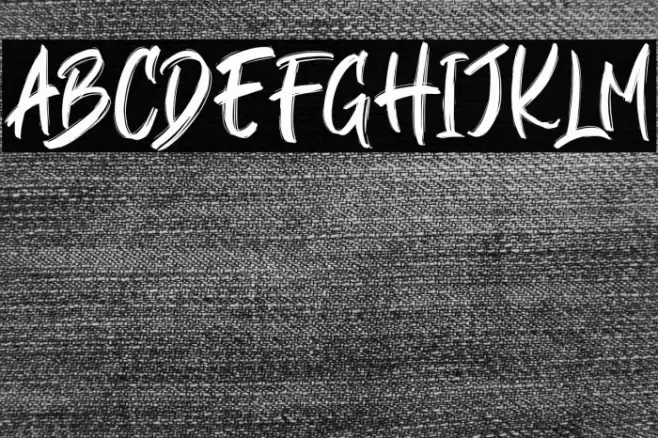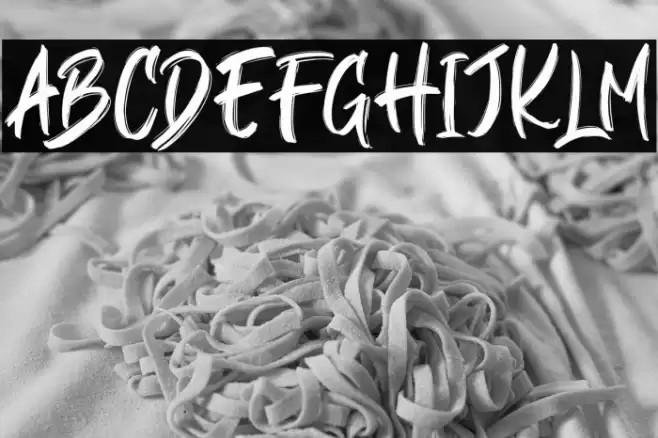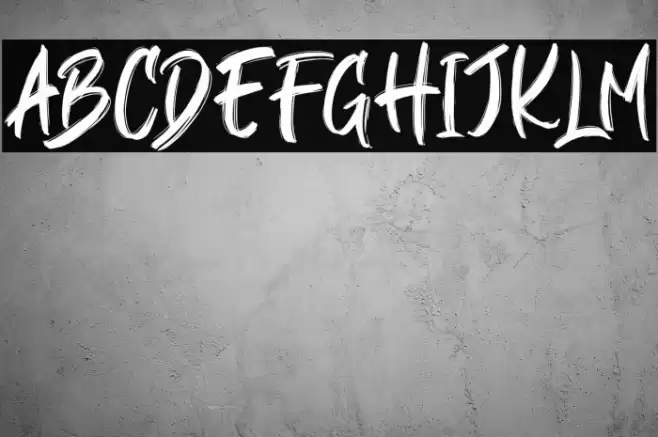
BLACKBALL Font
BLACKBALL Description
This font features a bold, brush-like style with dynamic strokes and a hand-painted appearance. The letters are characterized by their energetic and expressive forms, with varying stroke widths that create a sense of movement and fluidity. The uppercase and lowercase letters maintain a consistent style, emphasizing a casual yet impactful look. The font's design is visually striking, making it suitable for projects that require a strong, artistic presence. The characters are slightly condensed, enhancing their boldness and making them stand out.
A bold, brush-style font with dynamic, hand-painted strokes from Uncategorized fonts.
- Font: BLACKBALL
- Proposed Projects: Ideal for posters, branding, headlines, and any creative projects that require a bold, artistic touch.